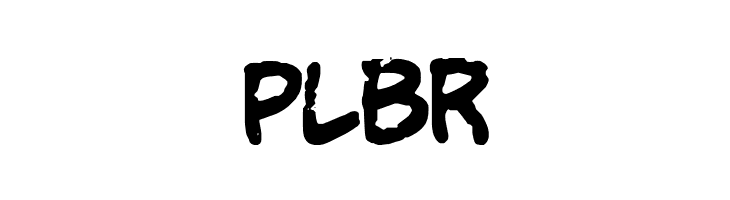
Soul Lotion Bold_italic Font
- Font: Soul Lotion Bold_italic
A bold, playful font with a comic book style and hand-drawn feel.
( Fonts by Kristian Larsen - www.triplefastaction.com )